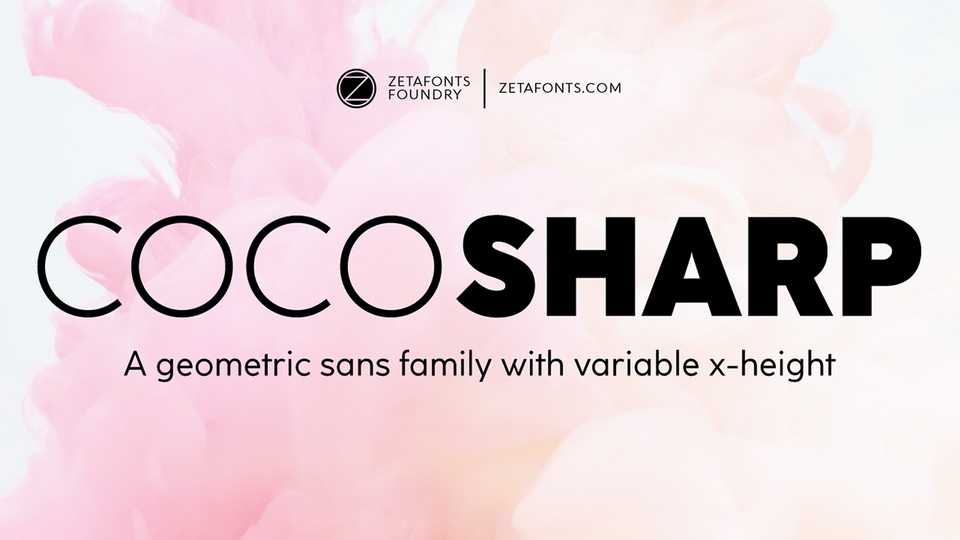
Download Coco Sharp typeface, a geometric sans serif font family with variable x-height. Coco Sharp is influenced by vernacular grotesques sign-painting and modernist ideals, and inspired by the classy aesthetic of fashion icon Coco Chanel.
Designer: Zetafonts